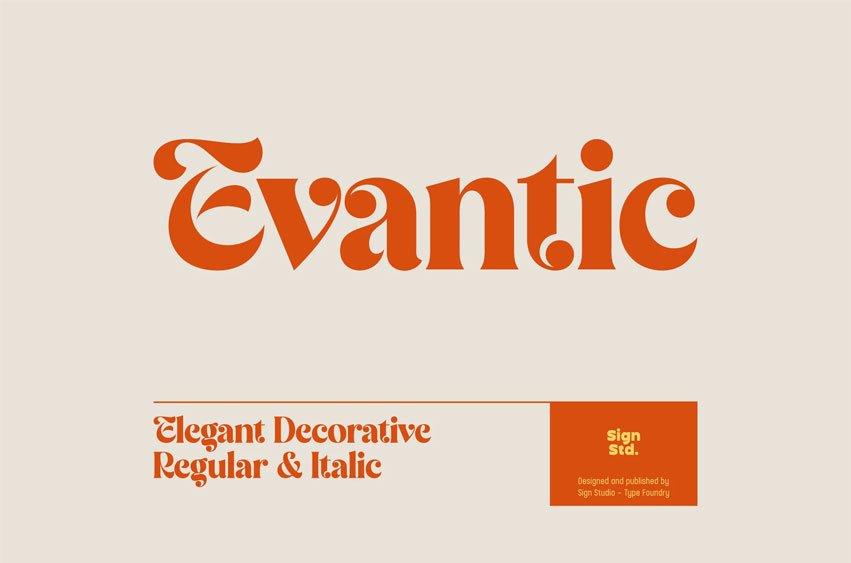
Evantic Font is an elegant serif typeface designed to bring a refined and timeless atmosphere to modern design. With its graceful curves, balanced proportions, and stylish details, Evantic delivers a sophisticated look that feels both classic and contemporary.
The typeface is carefully crafted to create a beautiful rhythm in text while maintaining strong character in headlines and branding. Its elegant shapes and subtle contrast make it perfect for projects that require a touch of luxury and femininity.
Evantic works beautifully for branding, wedding designs, editorial layouts, and high-end product packaging. Whether used for logos, titles, or social media visuals, Evantic adds a sense of charm, grace, and personality to every composition.
Evantic is designed to help designers create refined, stylish, and memorable visual identities.